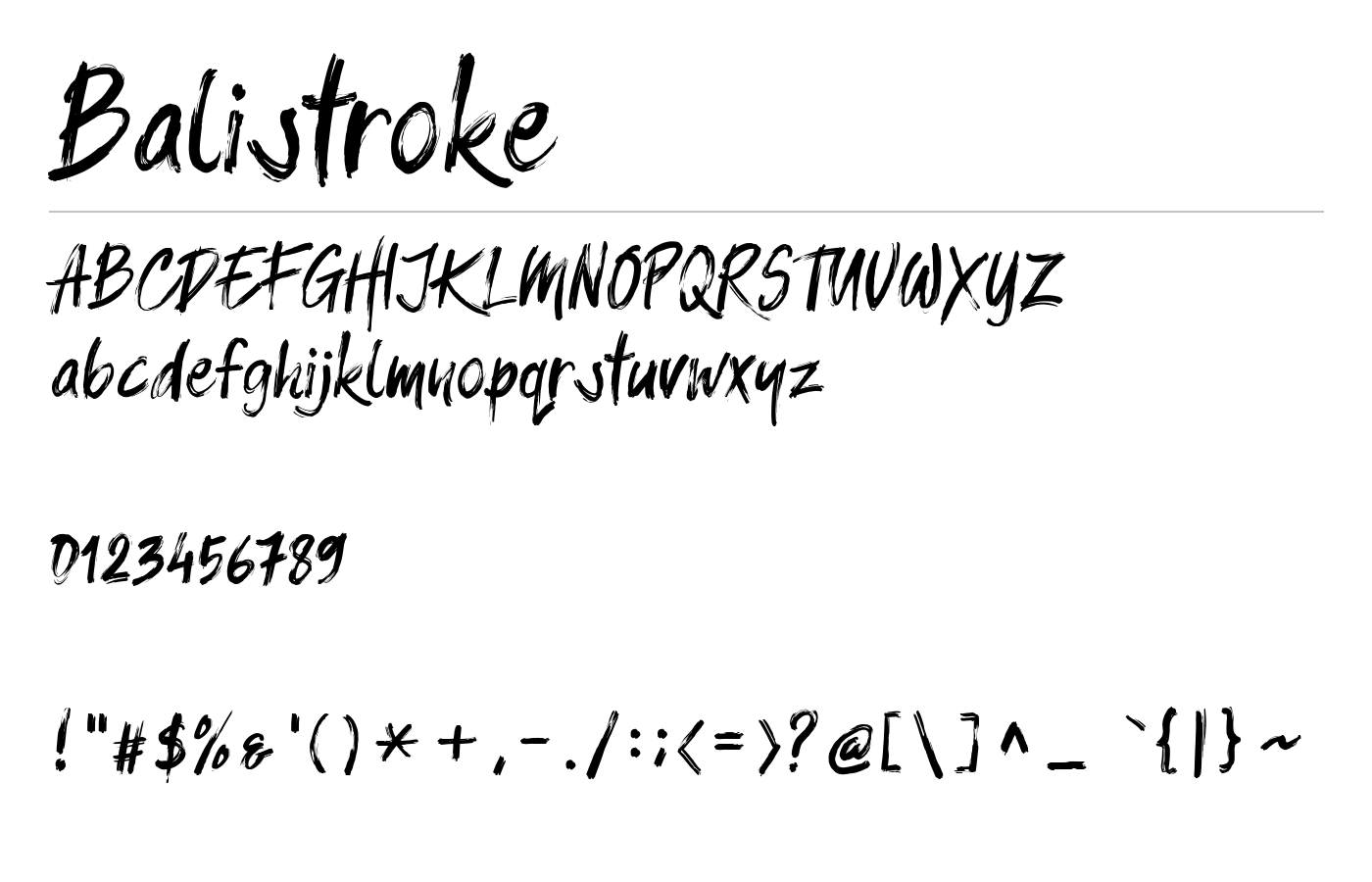
Balistroke is a bold, expressive brush script font with a dynamic, hand-painted feel. Its rough, textured strokes and slightly condensed letterforms give it an energetic and artistic vibe, making it ideal for creative projects, casual branding, and eye-catching headlines. This font works well when you want to add a personal, lively touch that stands out with character and movement.
Balistroke Font